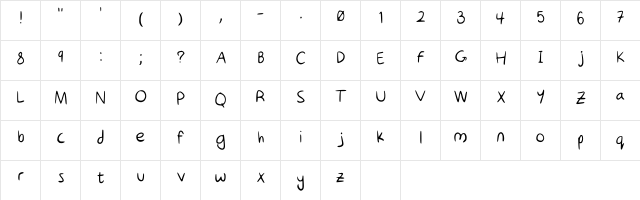
Cool Kid Font Regular
Design Context for Cool Kid Font Typeface
Cool Kid Font is a composed and adaptable typeface that performs quietly and consistently across a wide range of design contexts.